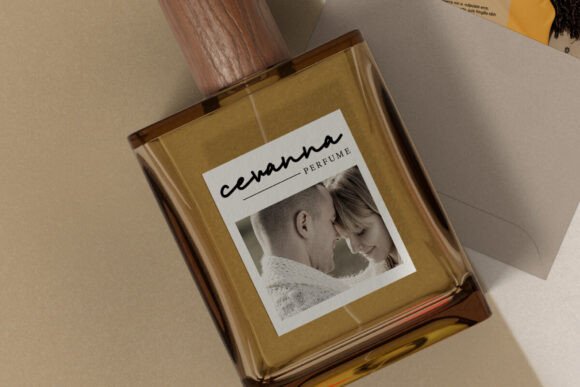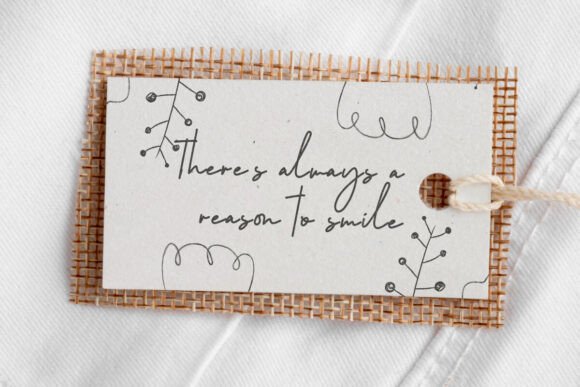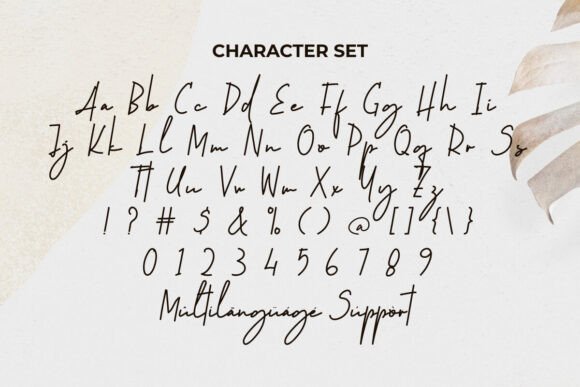
Great Life Font
Great Life Font is a simple yet beautiful one line handwriting signature font in a calm and warm concept. It will create a chic look in any setting and is perfect for enhancing your creative designs, such as advertisements, branding logo, brochure, business cards, cover design, flyer, greeting cards, header, headline, label, packaging designs, poster, quotes, restaurant menu, screen print, stationery, title, watermarks, website, wedding invitation, and more!Great Life Font provides neat modern handwritten ligatures of lowercase letters to improve font performance. A simple concept but still elegant end result is an important artistic value to support whatever business you are in, such as bakery, coffee shop, event organizer, fashion, graphic design, hotel, jewelry, luxury watch, movie, restaurant, perfume, photography, printing, publishing, spa salon, work of art, many others.